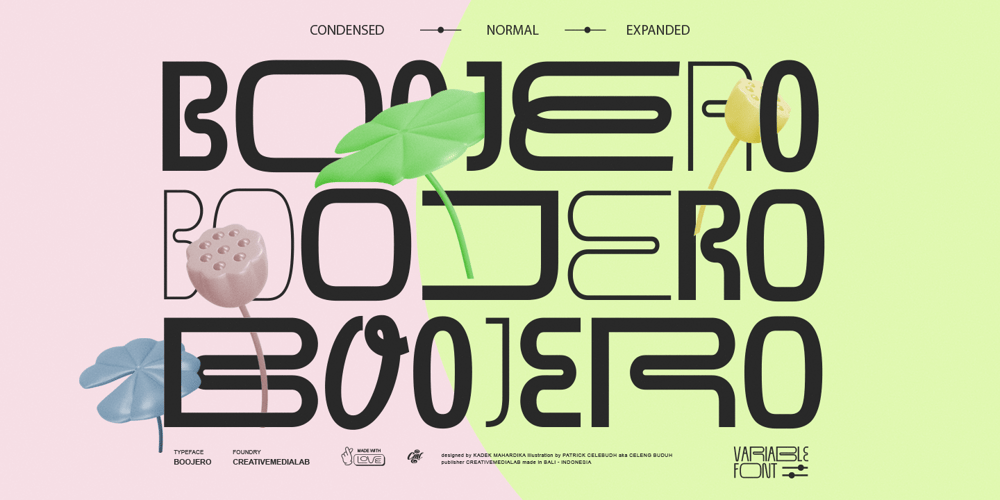
Boojero Font Family was designed by Kadek Mahardika and published by Creativemedialab. Boojero contains 13 styles and family package options. Boojero is a relaxed, friendly and fun sans serif, it contained three widths: Condensed, Normal and Expanded, four styles each, including hand drawn script in stylistic alternates.It is variable font, officially known as Open-Type Font Variations. You can generate lots of width and weights with the two available slider axis.Boojero will add fresh fun vibes to your designs. This font is perfect for kids stationery, book covers, titles, etc.